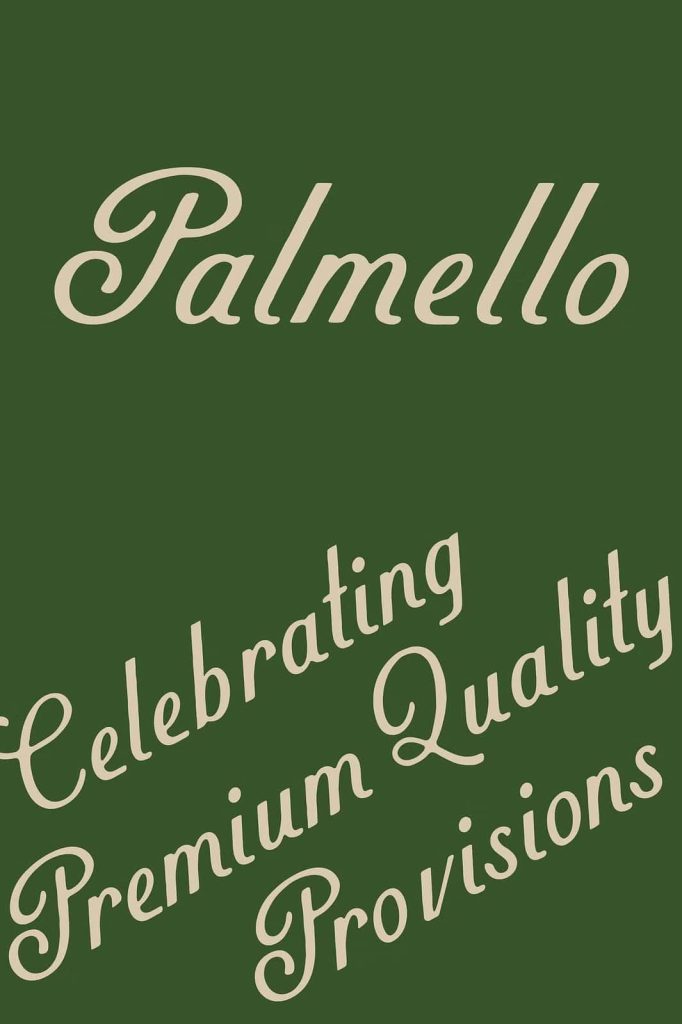
Palmello Script Font
The Palmello Script font is a stylish non-connecting script typeface that captures the expressive character of hand-drawn lettering. Inspired by retro European advertisements from the 1950s and 1960s, Palmello brings vintage personality and artistic charm into modern design projects. This typeface blends classic mid-century aesthetics with a contemporary structure, allowing designers to create bold and memorable typography.
Unlike traditional cursive fonts that rely on connected strokes, Palmello uses a non-connecting script style. Each letter stands independently while maintaining the natural rhythm and flow of handwritten lettering. This design choice gives designers more control over spacing and layout while preserving the expressive feeling of hand-crafted typography.
Palmello functions as a versatile display typeface that performs exceptionally well in titles, headlines, and decorative typography. At the same time, it remains readable enough to support secondary text in creative layouts. This balance allows the font to adapt to a wide range of visual design applications.
Inspired by Retro European Advertising
The design of the Palmello Script font draws strong inspiration from the vibrant advertising culture of mid-20th century Europe. During the 1950s and 1960s, many advertisements featured expressive lettering styles that communicated personality, optimism, and artistic flair. Palmello captures this nostalgic atmosphere through its playful strokes, organic curves, and hand-drawn structure.
Vintage posters, café signage, travel advertisements, and product packaging from that era often used hand-lettered typography to attract attention. Palmello continues that tradition by recreating the expressive visual language that defined those classic designs. The font reflects the artistic spontaneity of brush lettering while maintaining the precision required for modern digital use.
Designers who want to evoke retro charm often turn to fonts inspired by mid-century typography. Palmello offers that nostalgic quality while remaining flexible enough for contemporary branding and digital design work.
A Non-Connecting Script with Hand-Drawn Character
Palmello stands out because it uses a non-connecting script structure. Each character appears individually drawn rather than linked together. This design approach offers several advantages for designers working on complex layouts.
First, the independent letters allow greater control over spacing and arrangement. Designers can easily adjust kerning and positioning without breaking the natural appearance of the script. Second, the non-connecting structure improves clarity when the font appears in larger compositions or layered graphics.
Despite the separated characters, the font still maintains the smooth rhythm associated with cursive writing. The shapes feel fluid and organic, which helps preserve the authentic hand-drawn aesthetic. This combination of structure and creativity makes Palmello a unique addition to any designer’s font collection.
Perfect for Display Typography
Palmello works particularly well as a display font. Its expressive forms and retro influence allow titles and headings to stand out instantly. Designers frequently use Palmello for posters, advertisements, editorial layouts, branding headlines, and packaging design.
Because the letterforms carry strong visual personality, they perform best in larger sizes where the hand-drawn details remain visible. Posters, promotional graphics, and product labels benefit from the font’s lively style and nostalgic tone.
Display typography requires fonts that communicate mood and identity quickly. Palmello achieves this by combining playful curves with confident strokes that attract attention without overwhelming the design.
Versatile Enough for Supporting Copy
Although Palmello excels as a display typeface, it can also support smaller text elements in creative layouts. Designers can use it for subheadings, short paragraphs, product descriptions, and decorative captions. The letterforms remain clear and readable while maintaining the distinctive hand-drawn character.
This versatility makes Palmello particularly useful for projects where visual consistency matters. Designers can use the same font for headlines and supporting text while maintaining a cohesive typographic style across the entire composition.
Whether used for short phrases, quotes, or branding taglines, the font adds personality without sacrificing clarity.
Ideal Uses for the Palmello Script Font
The Palmello Script font works well across many creative design fields. Graphic designers, illustrators, and branding specialists frequently choose it for projects that require retro charm and handcrafted aesthetics.
Common applications include posters, product packaging, vintage-themed branding, café menus, editorial design, advertising graphics, greeting cards, and social media artwork. The nostalgic inspiration from European mid-century advertising helps these projects feel lively, stylish, and authentic.
Palmello allows designers to bring the warmth of hand-drawn typography into modern digital environments. Its unique balance of retro inspiration, flexible layout control, and expressive design makes it a valuable display font for creative professionals who want to capture the spirit of classic advertising typography.